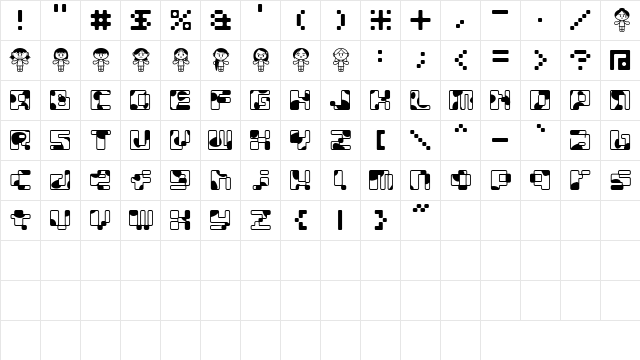
MOO GIRL Free Font
MOO GIRL
Style: GIRL
Design Context for MOO
MOO is a composed and adaptable typeface that performs quietly and consistently across a wide range of design contexts.